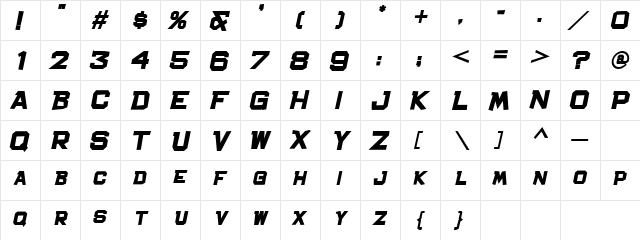
Bachelor Pad JL Bold Italic Font Preview
Design Context for Bachelor Pad JL Typeface
Bachelor Pad JL offers clean, dependable letterforms without strong stylistic allegiance, making it a practical choice for designers who need flexibility. The slanted form adds forward momentum and visual energy. The heavy weight commands attention and anchors typographic hierarchies.
Pro Tip: Try Bachelor Pad JL for annotation and caption copy alongside an upright companion — the contrast in angle creates a dynamic but ordered typographic system.